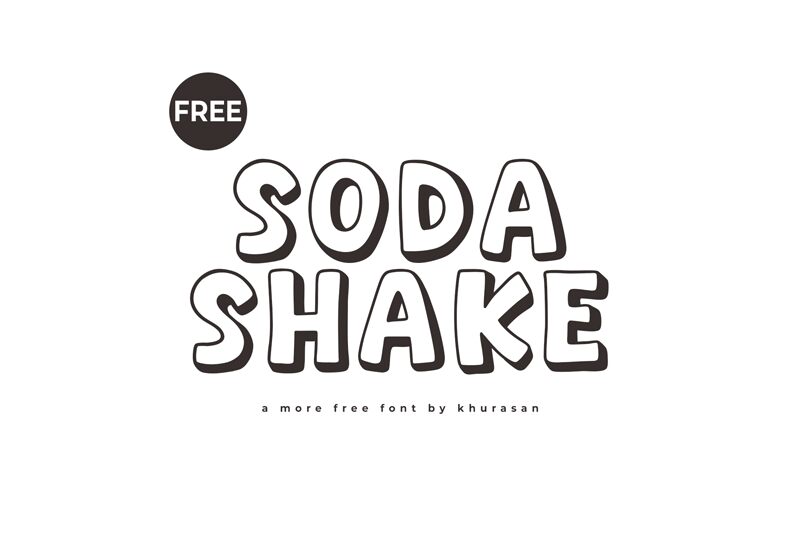
Soda Shake font, a whimsical typeface by Khurasan, is a vibrant display font with charming cartoonish characters and bold stroke widths. The bubbly appearance of each element are delivered through an outline style with rounded edges. All are combined together to give a playful informal mood where the typeface is perfectly appropriate for children’s projects.
Moreover, the free font can be used for posters, flyers, packaging designs, book covers, stationery designs, branding visuals for kids’ brands or businesses targeting children (museums, festival organizers).